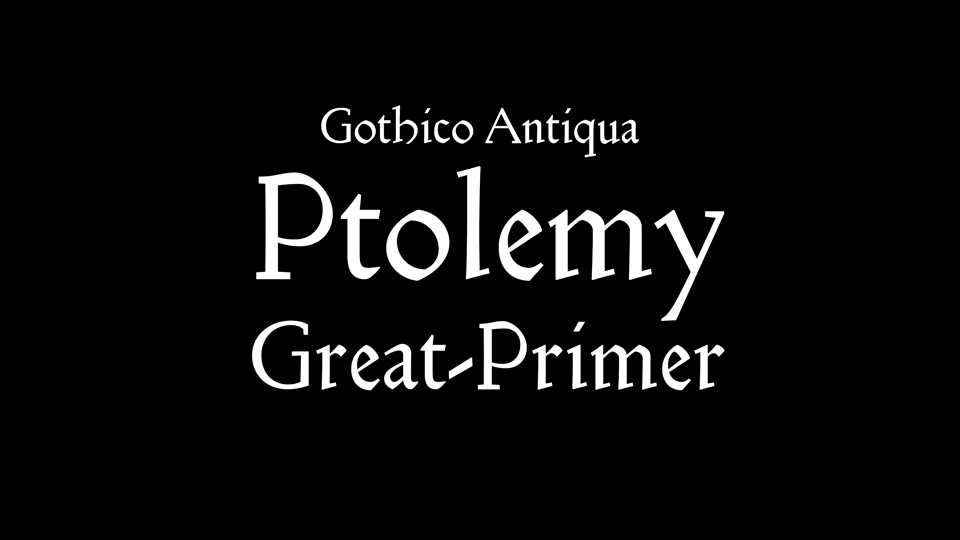
Download Ptolemy font, Hybrid designed in Chelsea by St John Hornby, Sidney Cockerell and Emery Walker, cut in 18 pt by Edward Prince for Cervantes’ Don Quixote. Published by the Ashendene Press in 1927.
Designer: ANRT Type